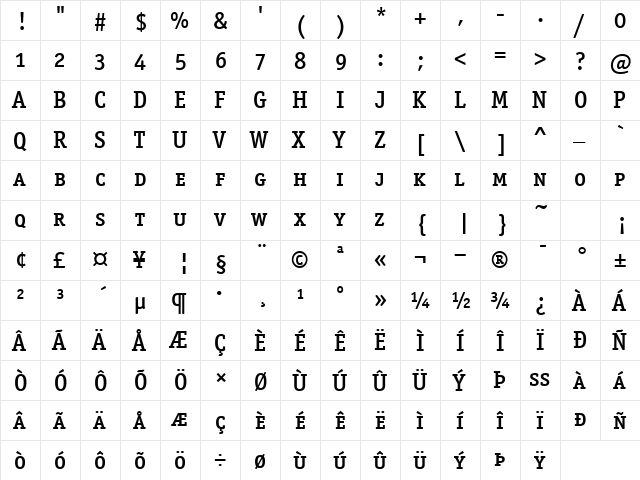
OfficinaSerMdSCITCTT Medium
| Foundry | International Typeface Corporation |
| Designer | Erik Spiekermann / Ole Schaefer |
Design Context for OfficinaSerMdSCITCTT Typeface
OfficinaSerMdSCITCTT takes a measured approach to typography — its balanced proportions and neutral character make it a reliable workhorse for both digital and print work.